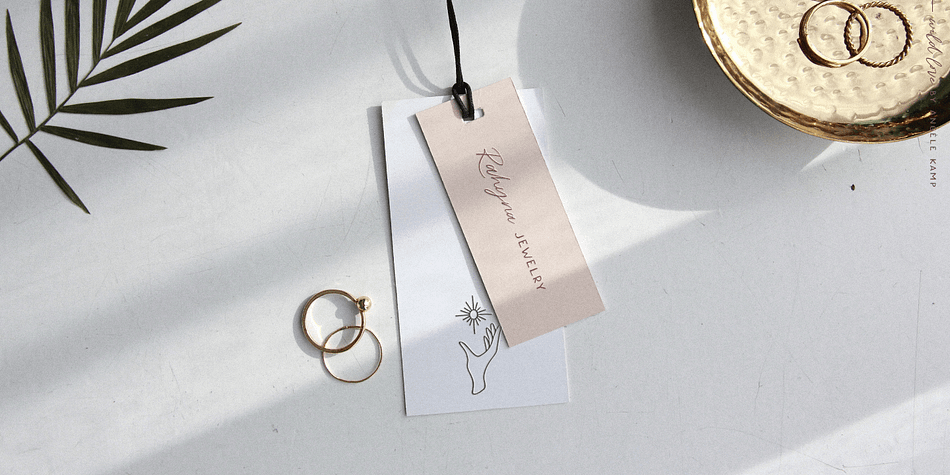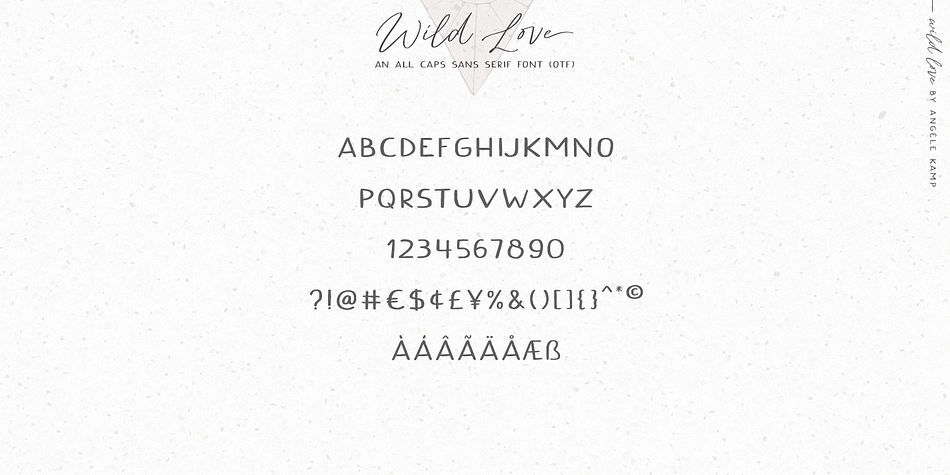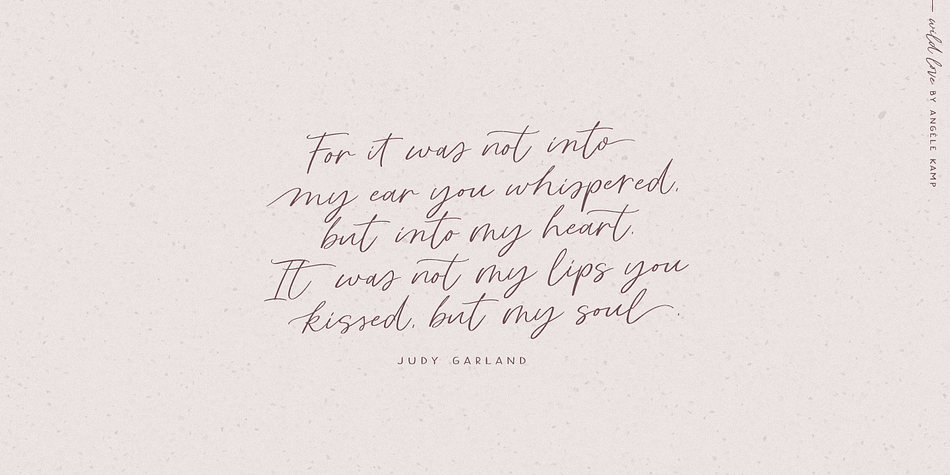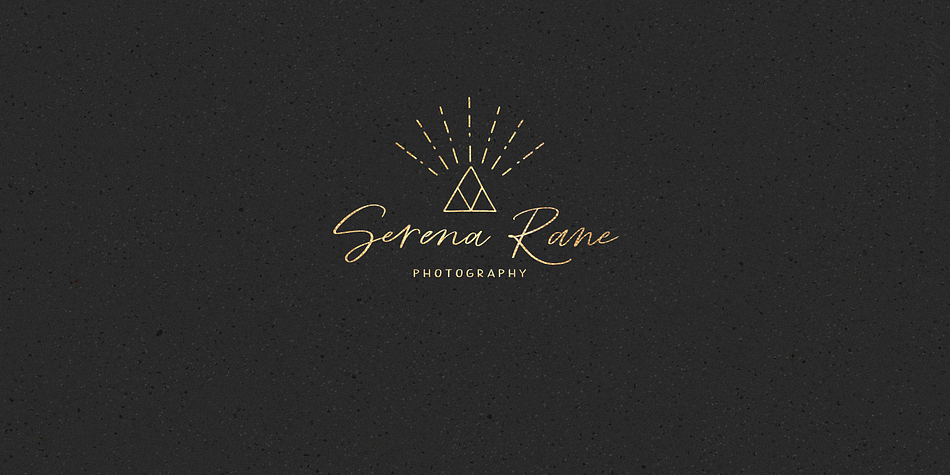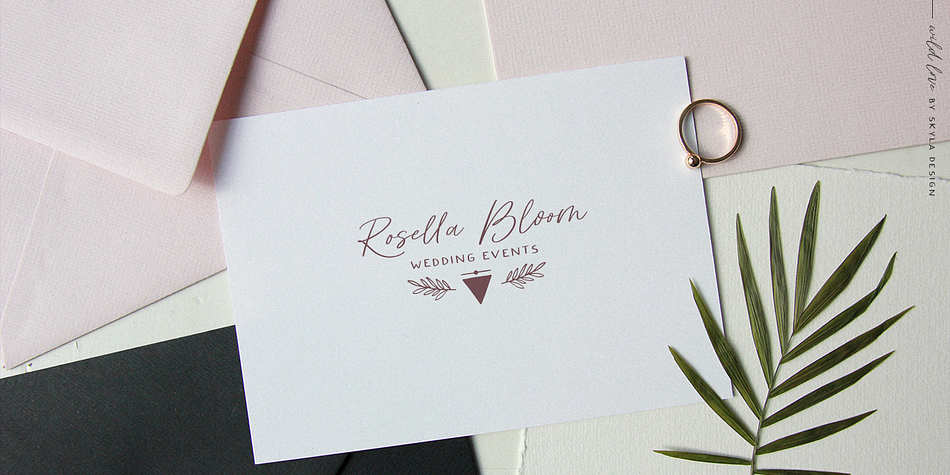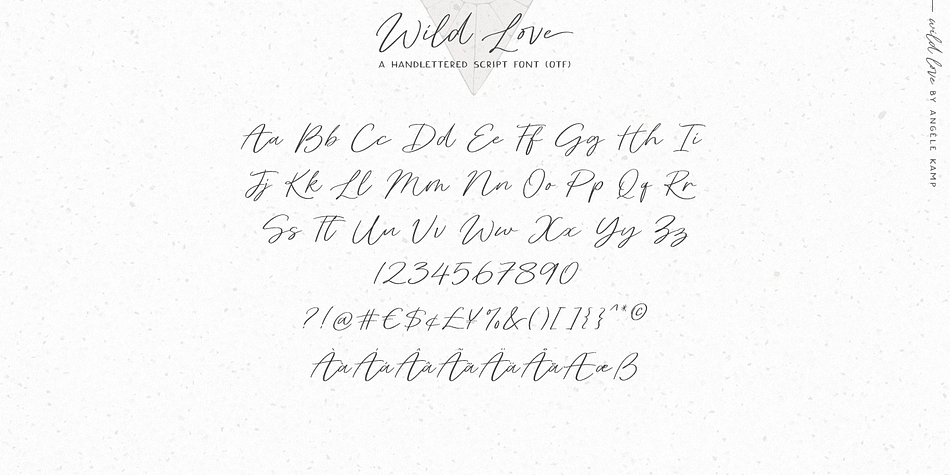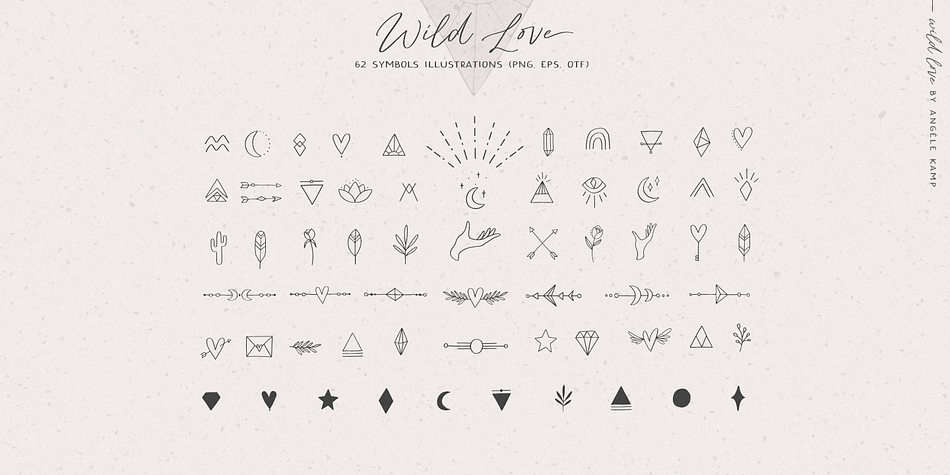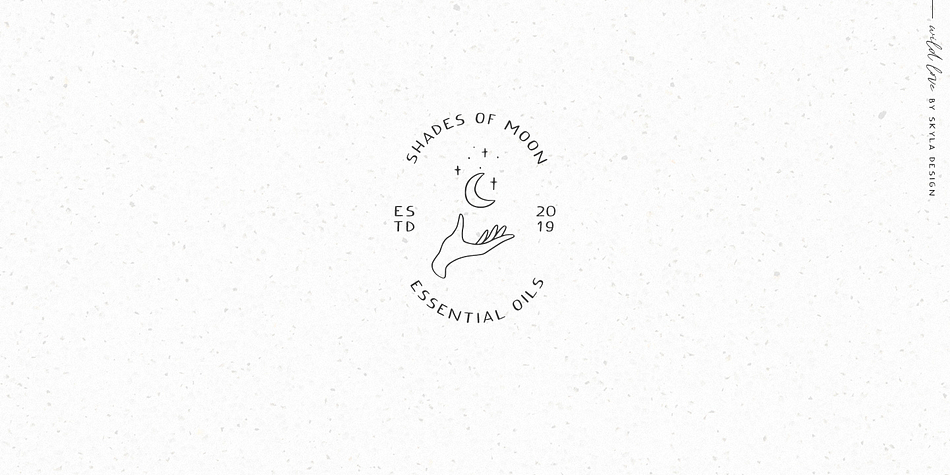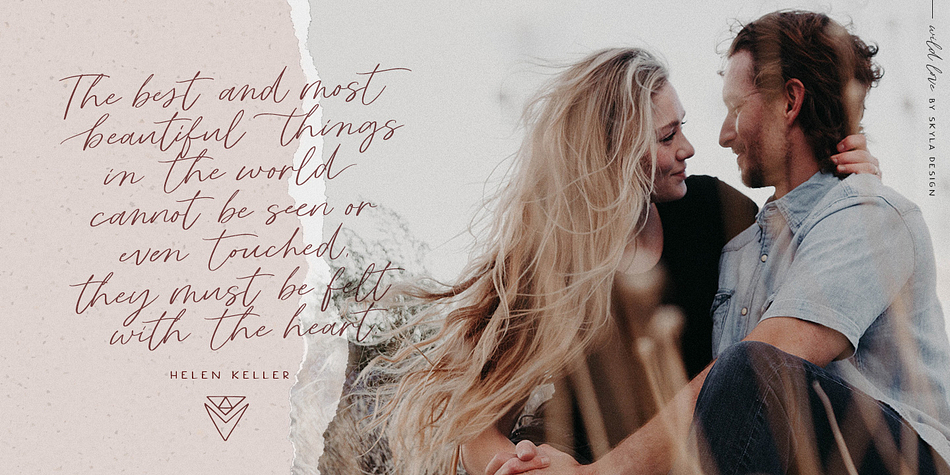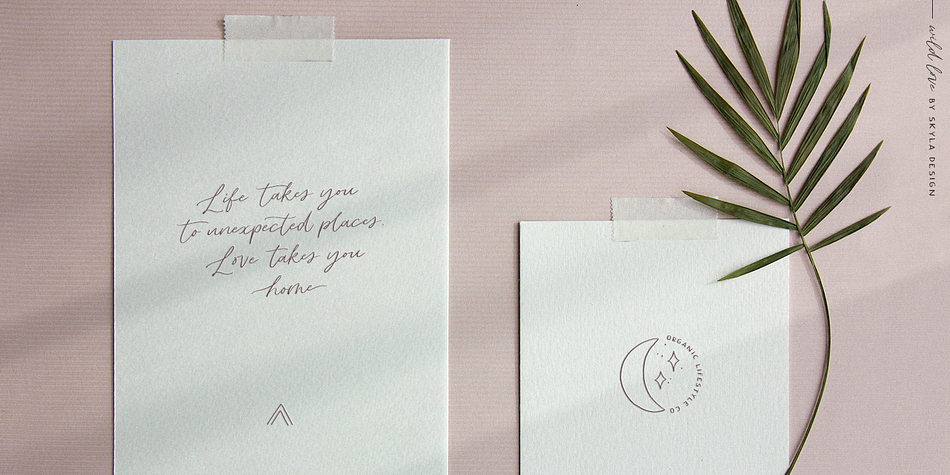
Designed by Angèle Kamp, Wild Love is a multiple classification font family. This typeface has three styles and was published by Angèle Kamp.
Wild love is an amazing collection of fonts & symbols that has everything you font lovers dream of. This amazing collection comes with two fonts that pair perfectly together and a set of symbol illustrations that will make designing Instagram quotes, websites & invitations so much easier and fun.
WILD LOVE SCRIPT (OTF) A lovely script font that includes 67 ligatures with letter combos that give you that gorgeous handlettered look. This font also includes 52 alternate start & end swashes for all of the lowercase characters.
WILD LOVE SANS (OTF) This is an all caps font that pairs perfectly with the script font
WILD LOVE SYMBOLS (OTF, PNGS, VECTOR EPS) The symbols font includes 62 hand-drawn illustrations that can be used for all of your lovely creations. Once you install the symbols font, you can type out the letters a-z, A-Z, 1-10